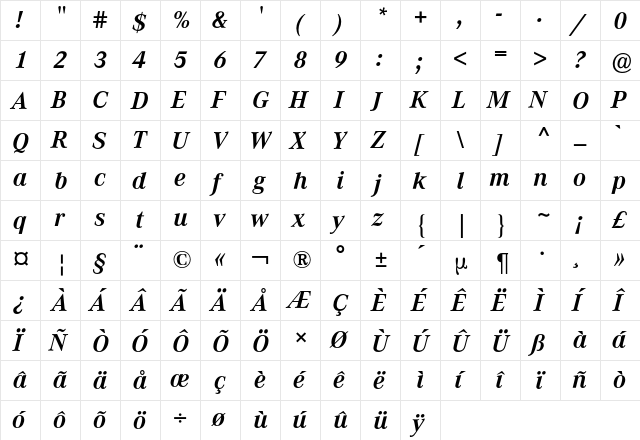
Corporate A BQ Regular Font Preview
Corporate A BQ Regular
Corporate A BQ Regular Font Details
Design Context for Corporate A BQ Typeface
Corporate A BQ is a composed and adaptable typeface that performs quietly and consistently across a wide range of design contexts.